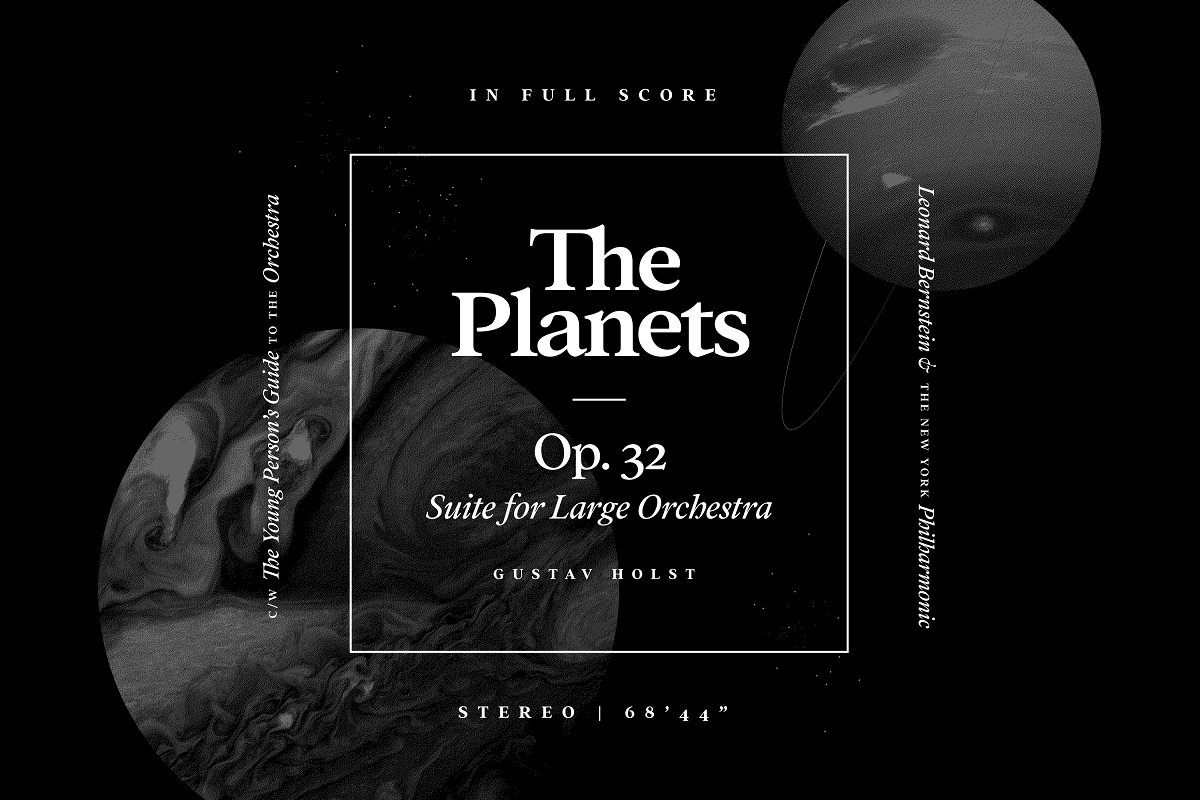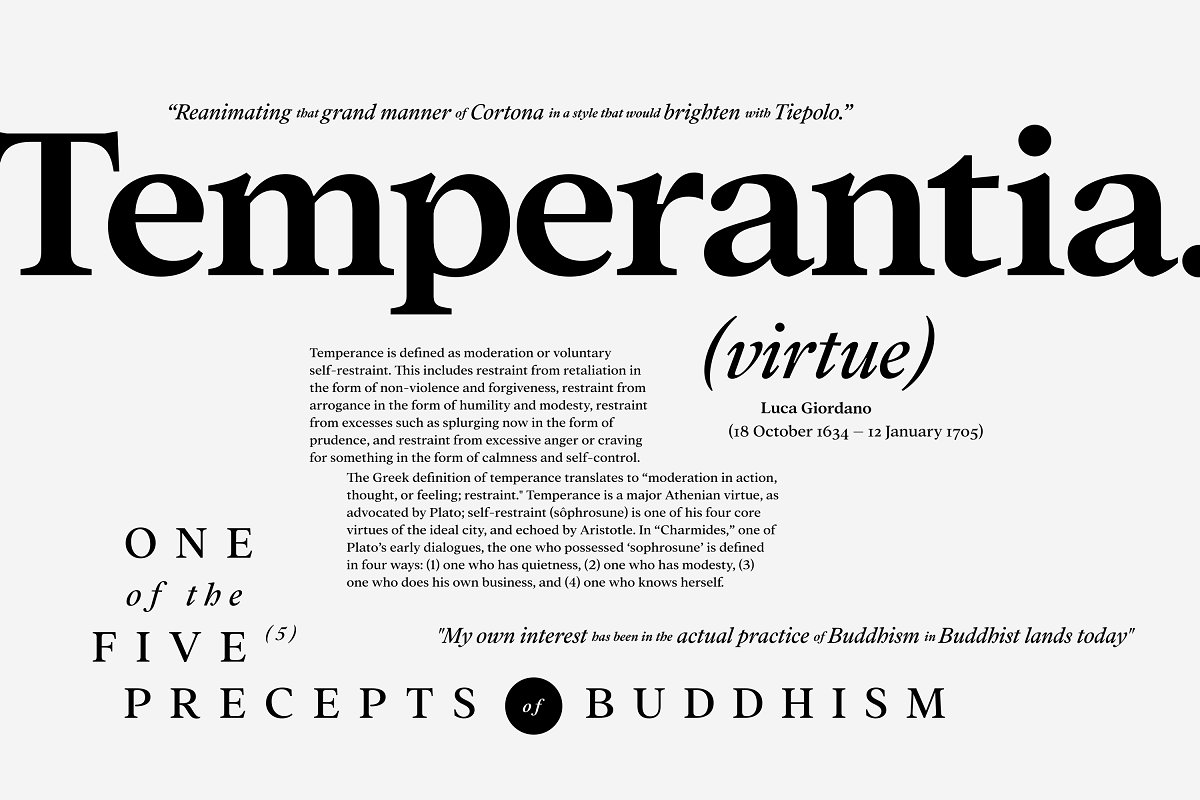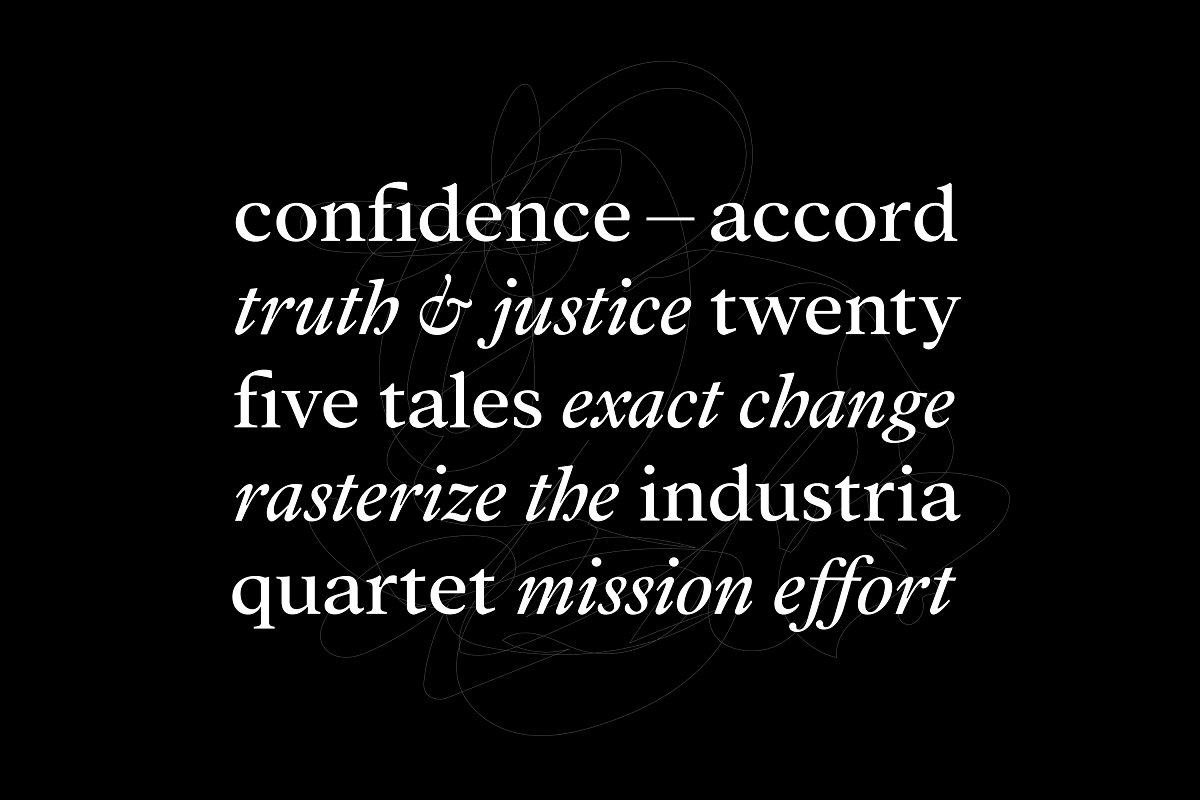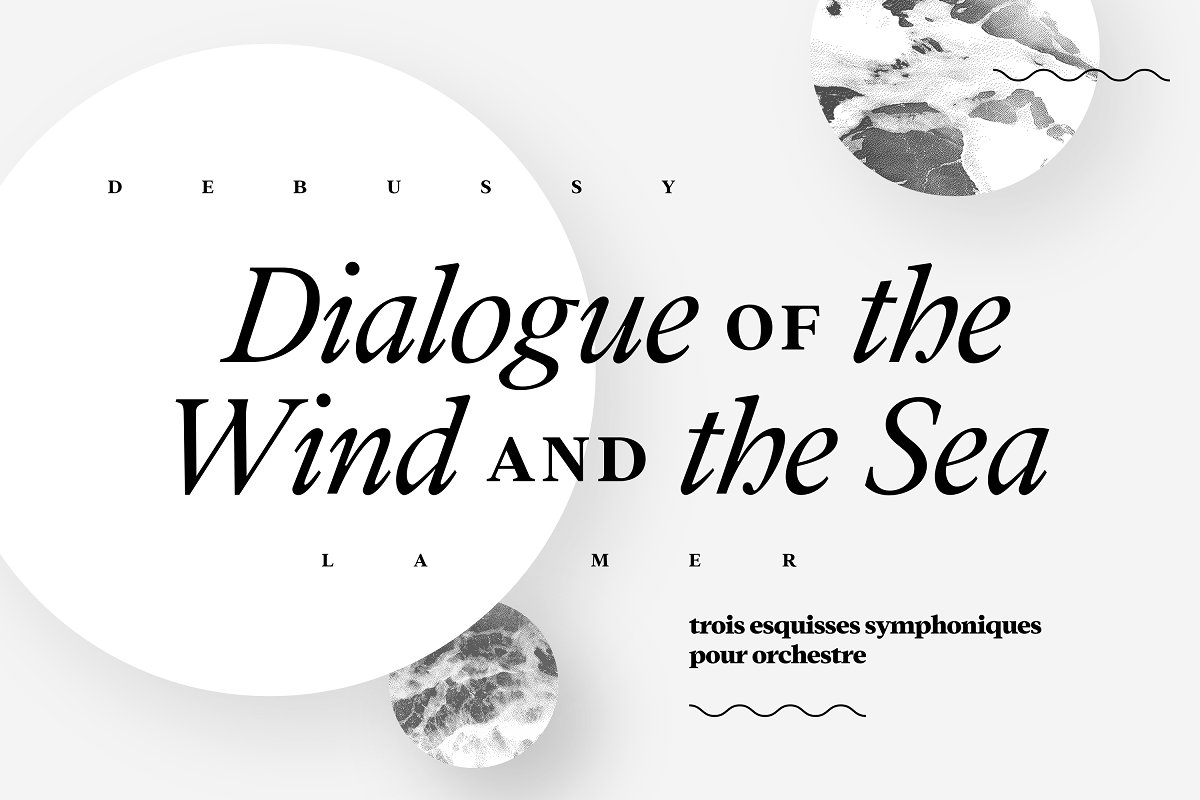
About the Addington CF graceful bold serif Font
Addington is a graceful and reliable serif, useful in any situation, Beautiful yet practical, Addington is designed for excellence in text-heavy settings while doubling as a capable and strong display typeface, Complete with seven weights, true italics, and many OpenType features, Seven weightsRoman and italic setsAdvanced OpenType features, including small capsLatin alphabet with extensive language supportFree updates and feature additionsIf you have any questions about licensing, need help with a typeface, or would like to request a new feature, contact me at connary